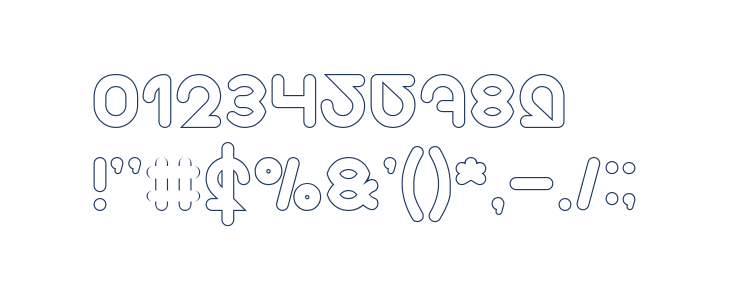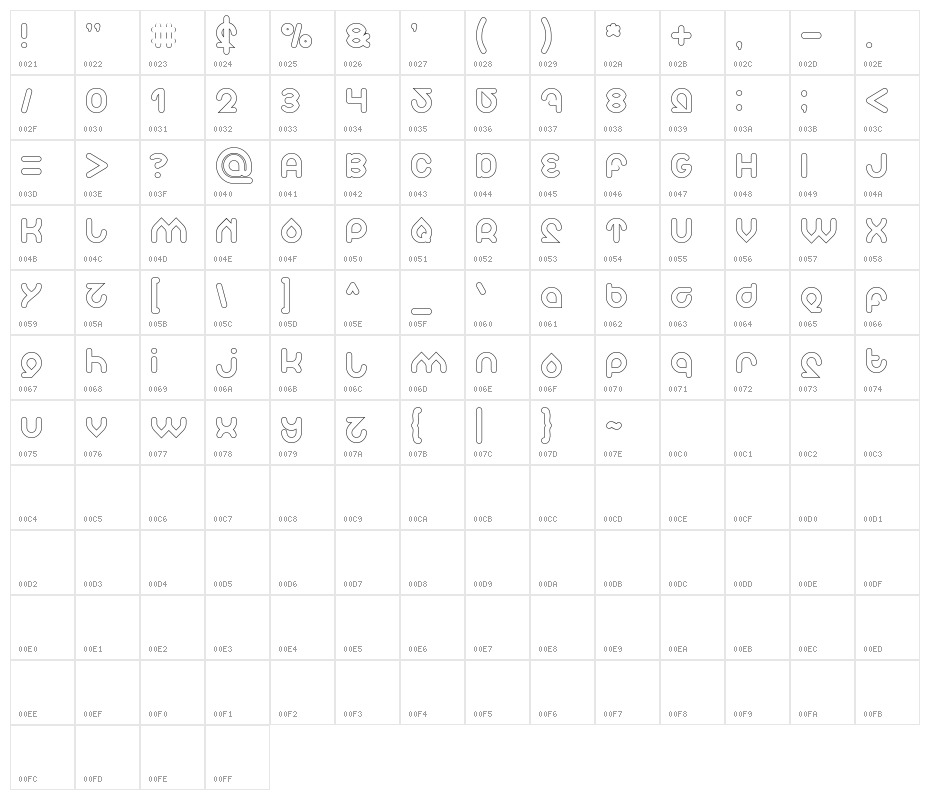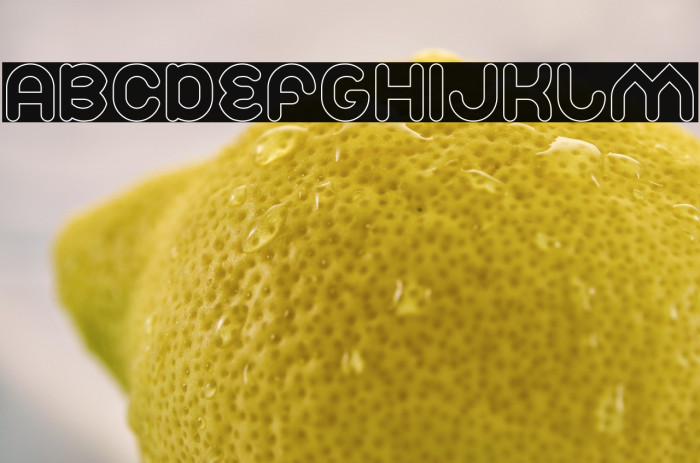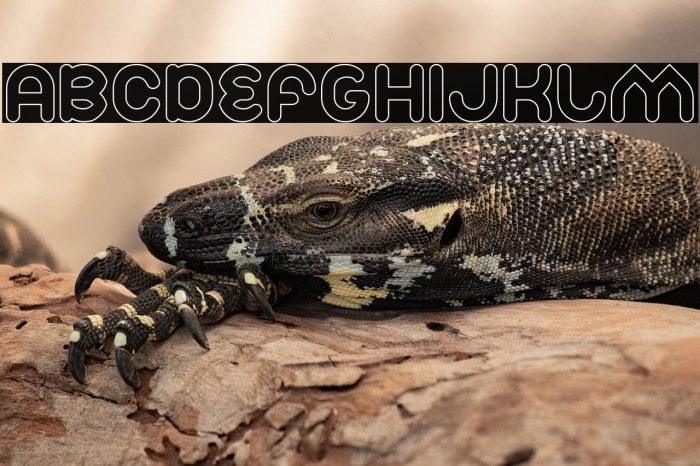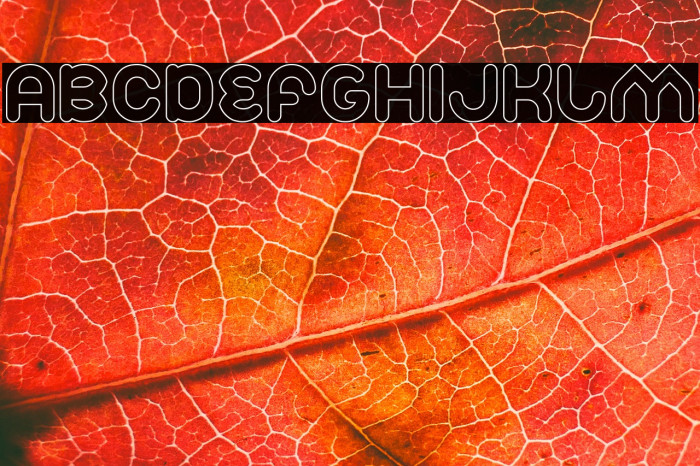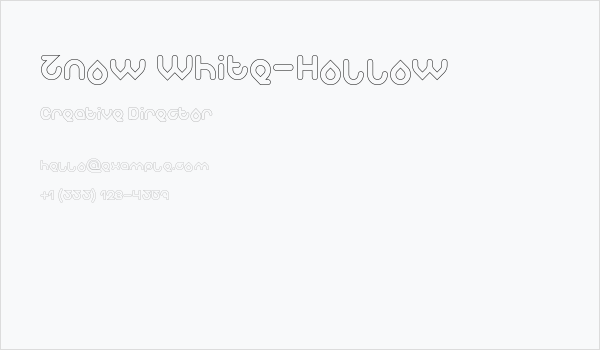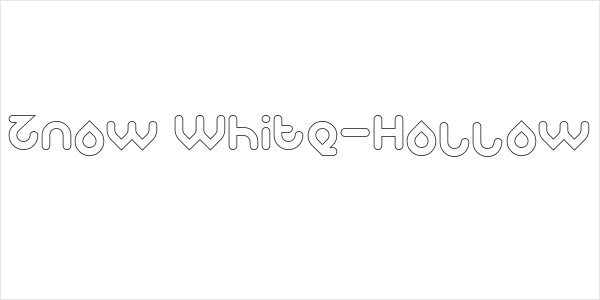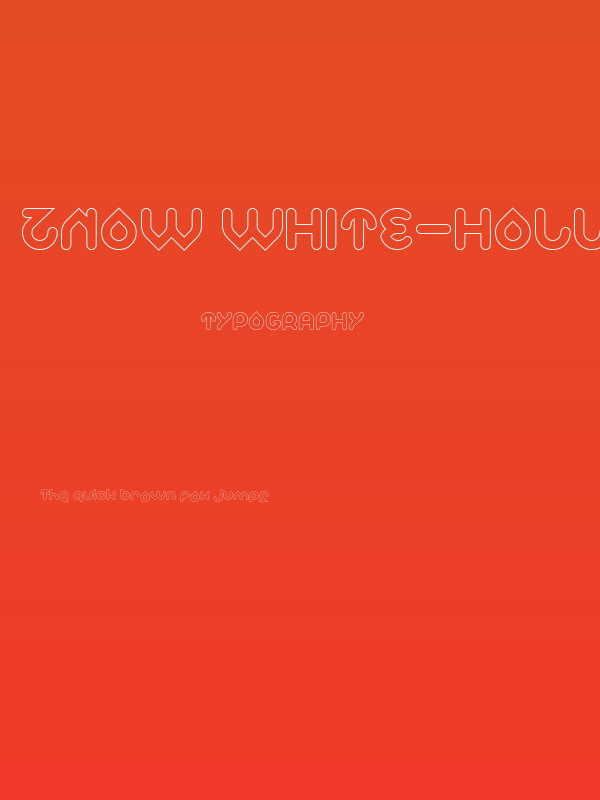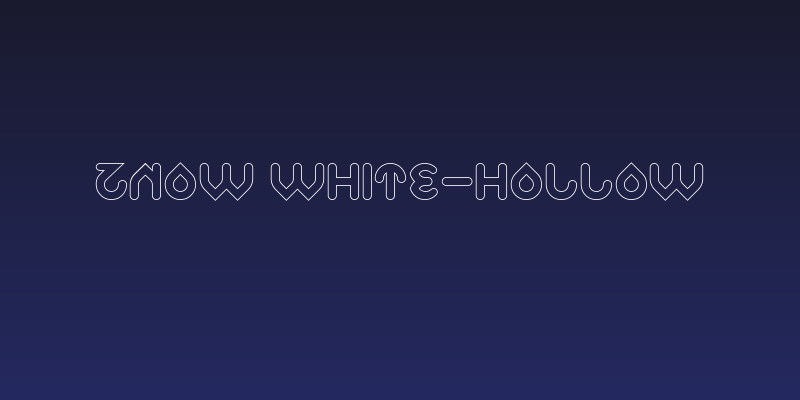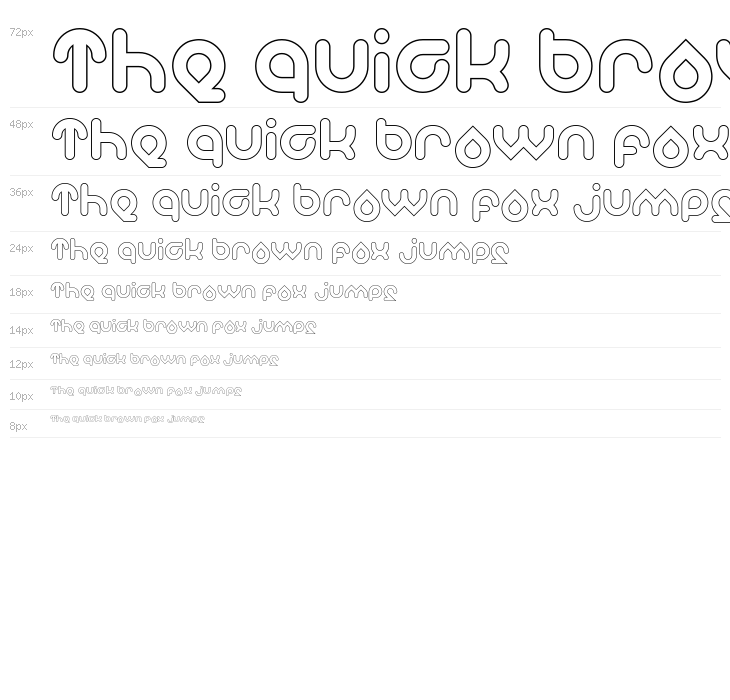
Znow White-Hollow Font
Znow White-Hollow Description
This font features a unique hollow design with rounded edges, creating a playful and modern aesthetic. The characters are outlined, giving them a light and airy feel, which is enhanced by the consistent stroke width throughout. The uppercase and lowercase letters maintain a cohesive style, with a geometric influence evident in the angular cuts and smooth curves. Numbers and special characters are designed to match the overall theme, ensuring uniformity across all elements. This font's distinctive style makes it stand out, offering a fresh take on traditional letterforms.
| Proposed Projects | Ideal for branding, posters, and digital media where a contemporary and playful look is desired. |